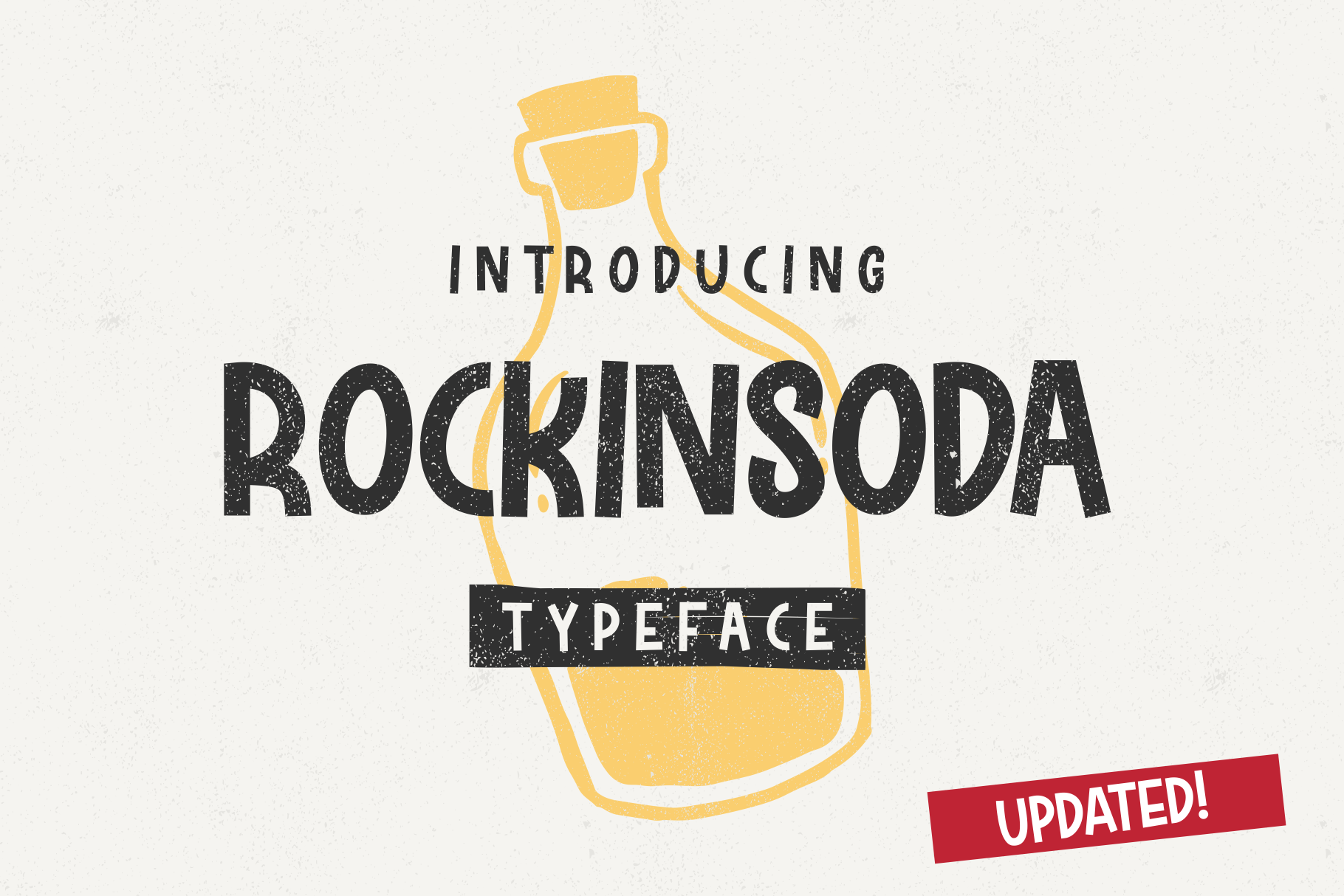
Rockinsoda Playful Font
Rockinsoda font is display font with a child's handwriting style with little improvisation on uppercase mode, although these fonts are all uppercase fonts. This font also has alternate on lowercase letters that can be used for the last letter or word cover. This font is perfect for something related to food, children, kids illustrations, book titles, website title, writing on video, or anything you can try to gain experience in graphic design needs.
- Number,
- Punctuation,
- Multilingual Supports ÆŒÀÁÂÃÅÄÇÐÈÉÊËÌÍÎÏÑÒÓÔÕÖØŠÙÚÛÜÝŸŽŁßẞÞđ